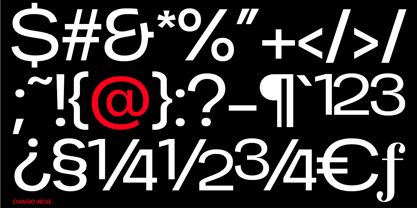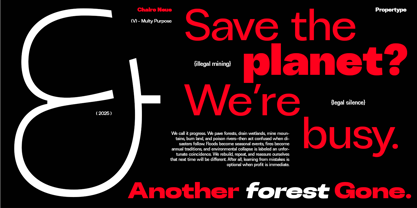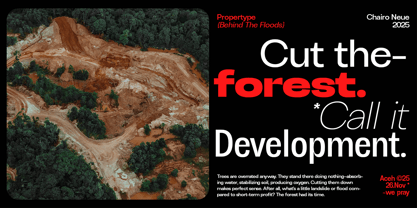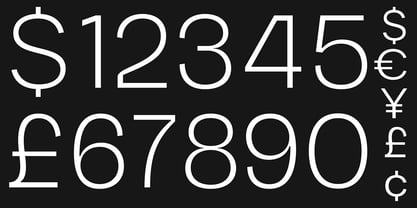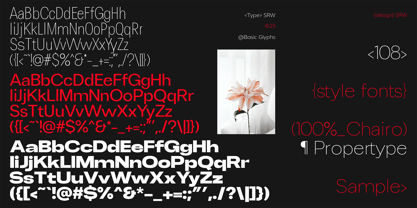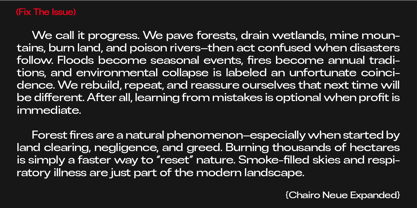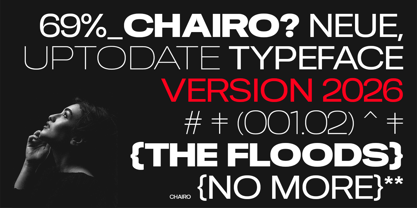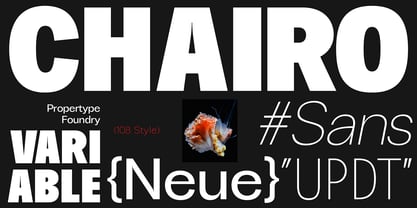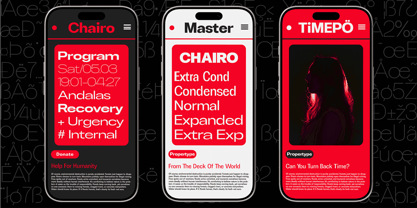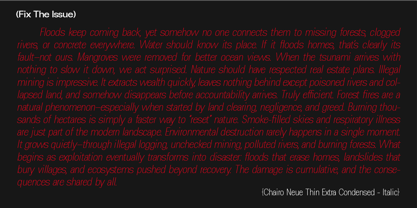
Chairo Neue
Die Schriftfamilie Chairo Neue wurde von Nadia Auliana entworfen und von Propertype veröffentlicht. Chairo Neue enthält 102 Stile und Familienpaketoptionen. Mehr über diese Familie
ChairoNeue is an elegant, modern, and contrasting sans serif font family. It comes in 109 styles, including both upright and italic styles, each with seven weights ranging from thin to bold. It's a versatile font perfect for any project, contrasting, modern, and easy to read. With this font, you can create logos, use it in advertisements, packaging, book and magazine covers, titles, descriptions, and more. Download ChairoNeue for your next project today. What's included? Capital Characters Lowercase Characters Numbers and Ligatures The ChairoNeue family features include multilingual support for a variety of languages.